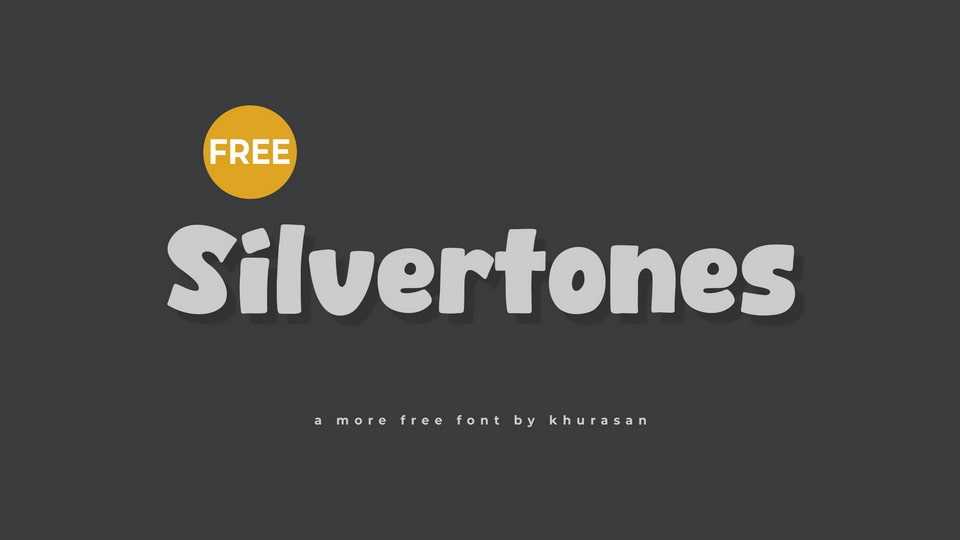
Download Silverstones font, a fun and quirky handcrafted cartoon typeface, designed with playful, bouncy shapes and rounded edges, that brings smiles to every letter.